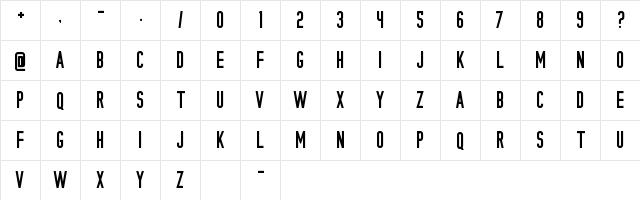
KONGO Regular Font Preview
KONGO Regular
KONGO Regular Font Details
| Designer | Almeerastudio 2018 |
Design Context for KONGO Typeface
KONGO offers clean, dependable letterforms without strong stylistic allegiance, making it a practical choice for designers who need flexibility.